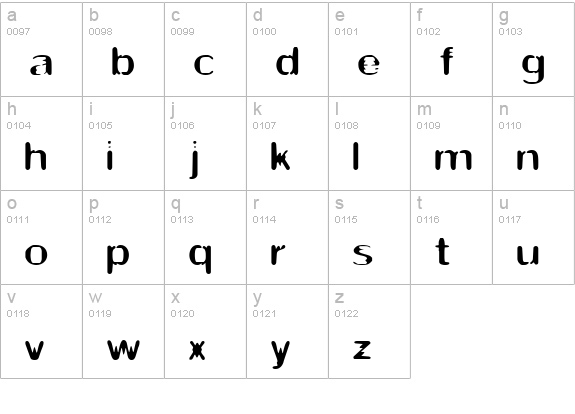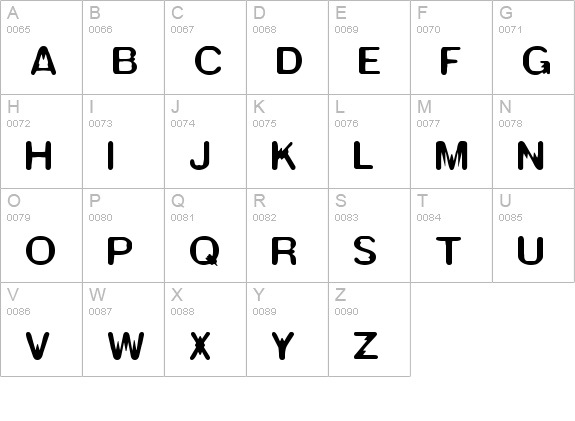
Thwart BRK Font Details
Thwart BRK font is a stunning display font that exudes a sense of boldness and strength. Its sharp edges and unique letterforms make it perfect for headlines, logos, and branding projects that require a touch of edginess. This font captures attention and demands to be noticed. What makes Thwart BRK font even more appealing is that it is available for free download at FontsMarket.com. This means that anyone can access and use this striking font without any cost. Whether you are a professional designer or a hobbyist looking to add a touch of creativity to your projects, Thwart BRK font is the perfect choice. With its versatility, Thwart BRK font can be used in a wide range of design projects. From posters and banners to website headers and social media graphics, this font will make your text stand out. Its strong presence and distinctive design will leave a lasting impression on your audience. The attention to detail in Thwart BRK font is evident in every curve and angle of each letter. The bold strokes and sharp corners give it a modern and contemporary feel, making it a popular choice among designers who want to create a visual impact. So, if you are looking for a unique and captivating font that is freely available to download, look no further than Thwart BRK font. Head over to FontsMarket.com and get your hands on this incredible font today. Unleash your creativity and elevate your design projects with Thwart BRK font.